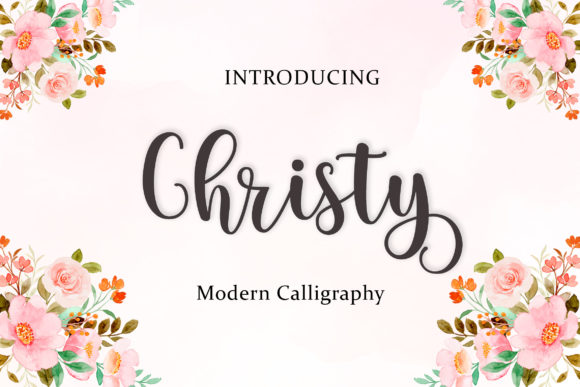
Behold the enchanting world of Christy Font, where elegance and creativity converge. Bathed in the spirit of Christmas, this script font is a masterpiece waiting to be discovered. Created by the ingenious takiyuddin90, Christy Font captivates with its delicate strokes and stylish swashes, perfect for adding a touch of magic to your designs.
With PUA encoding, unlocking the full potential of Christy Font becomes a breeze. Effortlessly access a vast array of glyphs and swashes, empowering you to unleash your creative vision. Whether it's Christmas cards, festive invitations, or whimsical branding, Christy Font effortlessly elevates your designs to new heights.
Step into a world where imagination knows no bounds. With Christy Font as your creative companion, transform your digital dreams into a captivating reality. Let your designs dance with joy and merriment, capturing the essence of the season with each stroke.